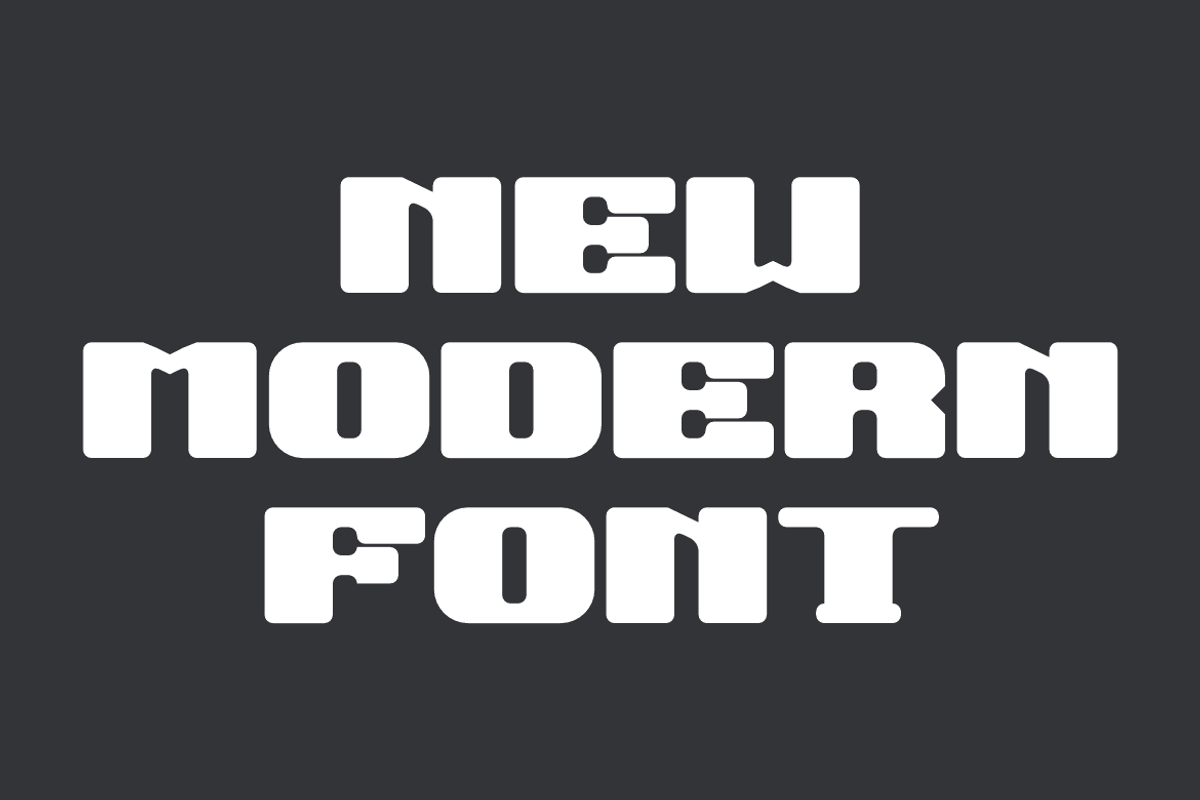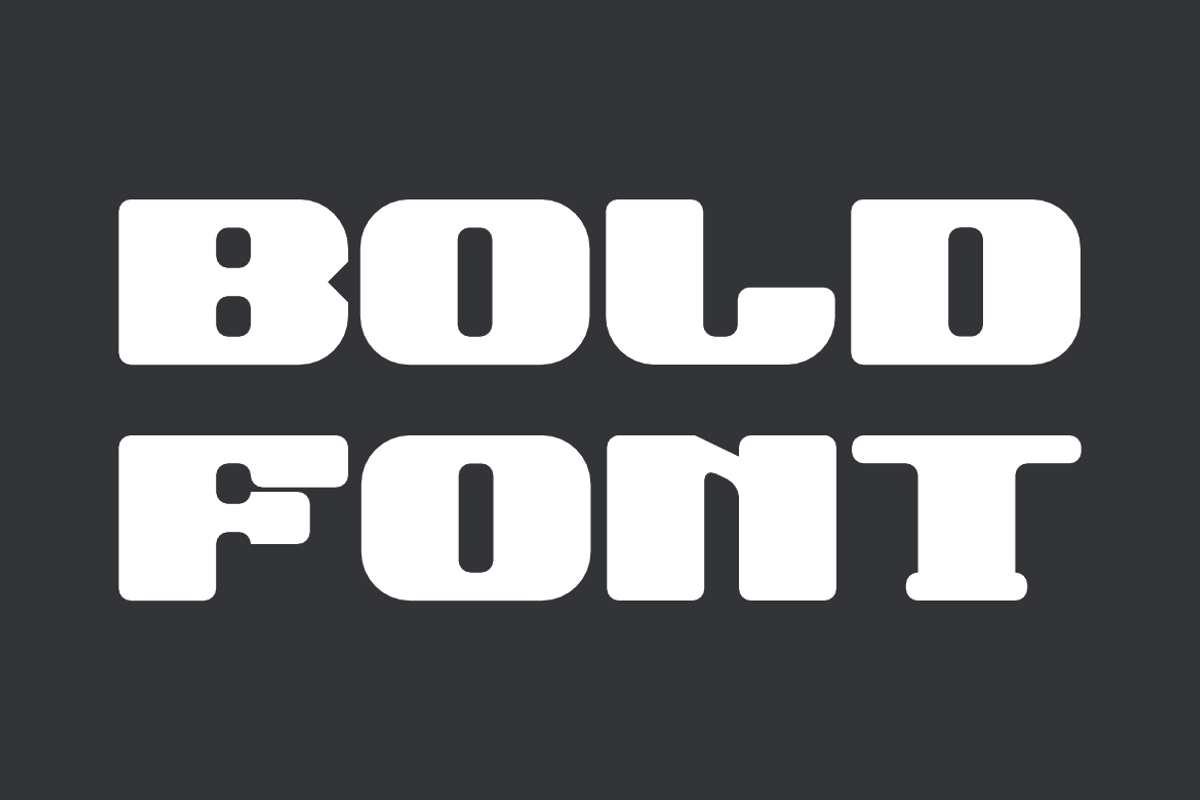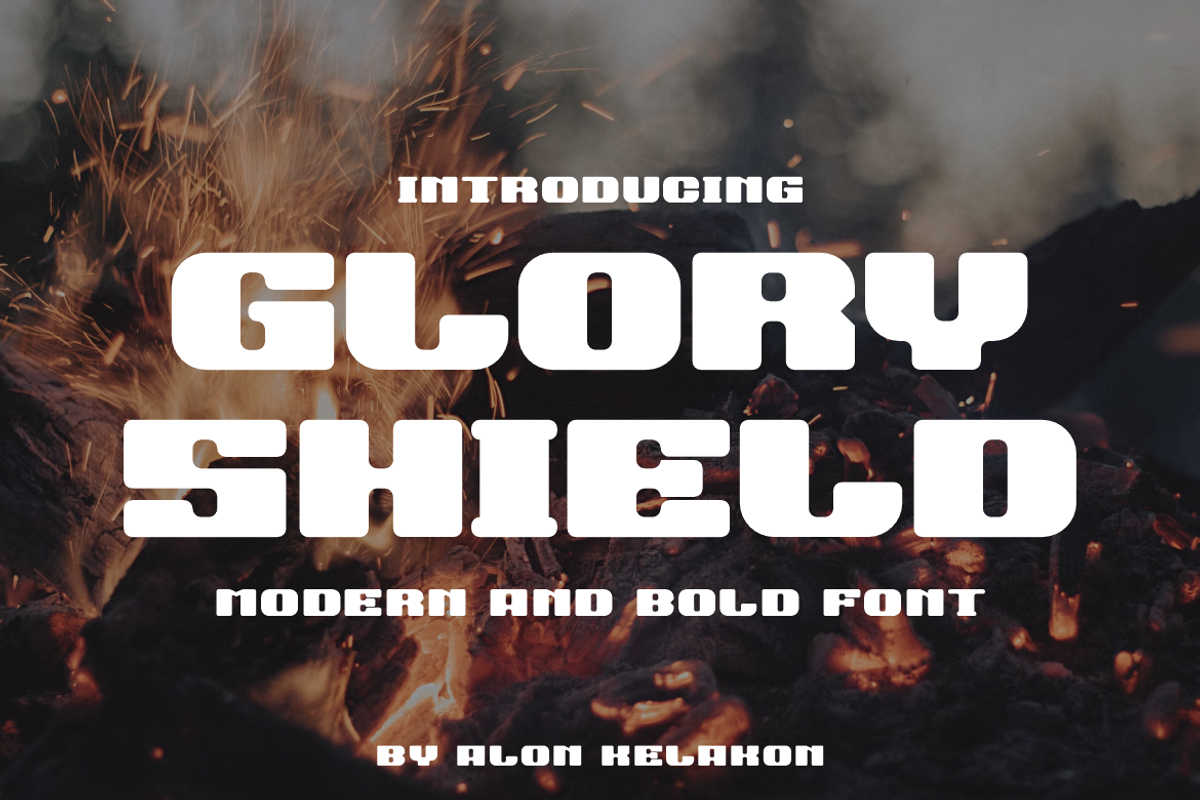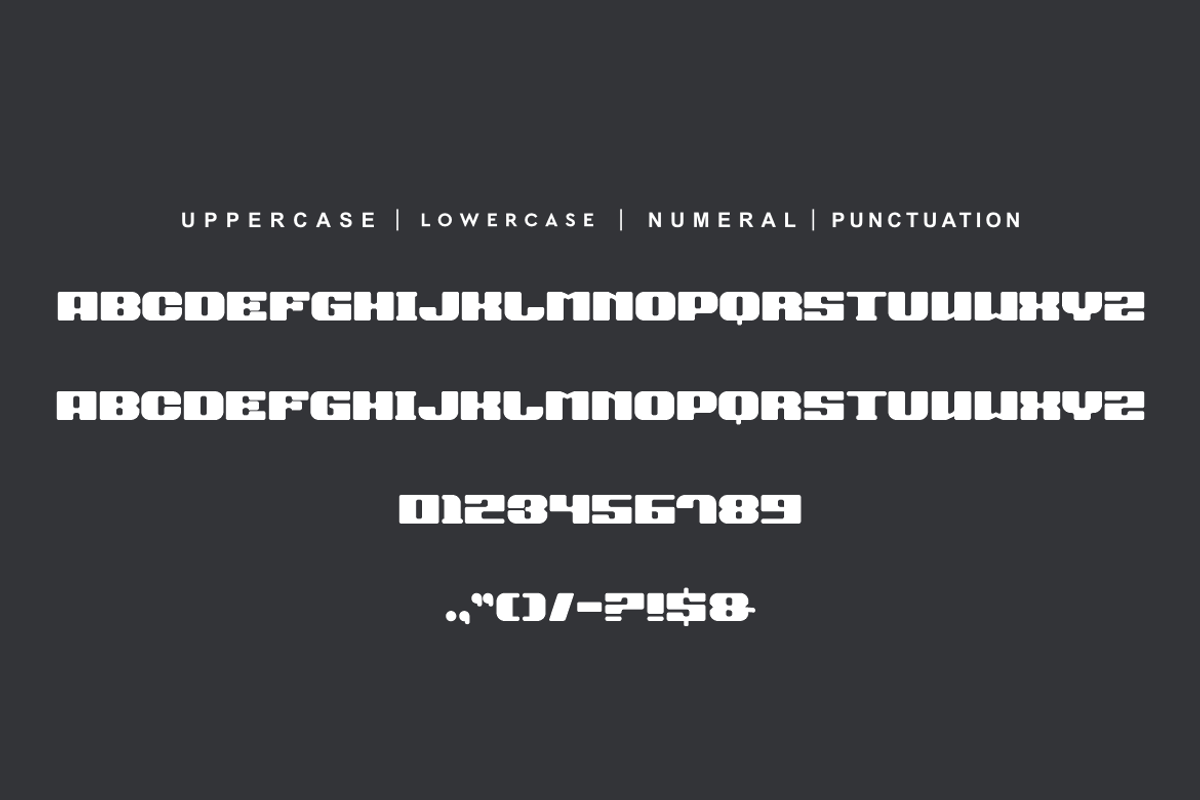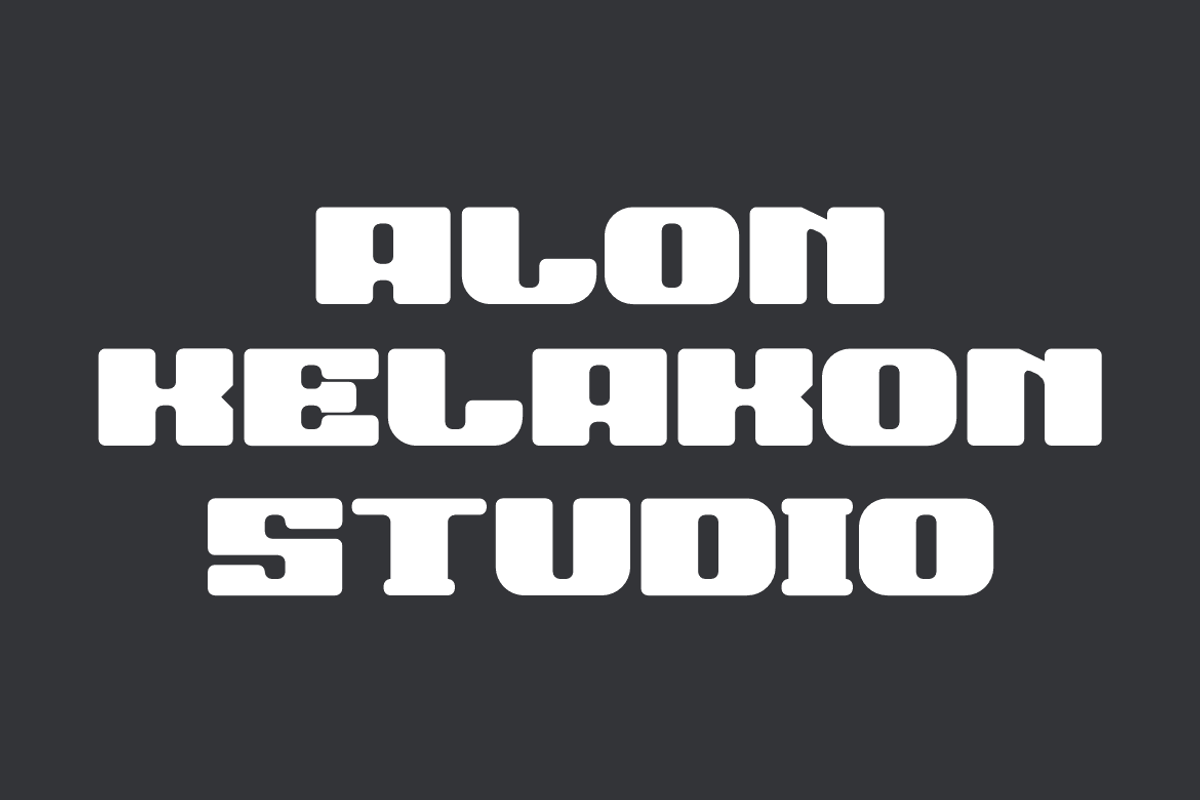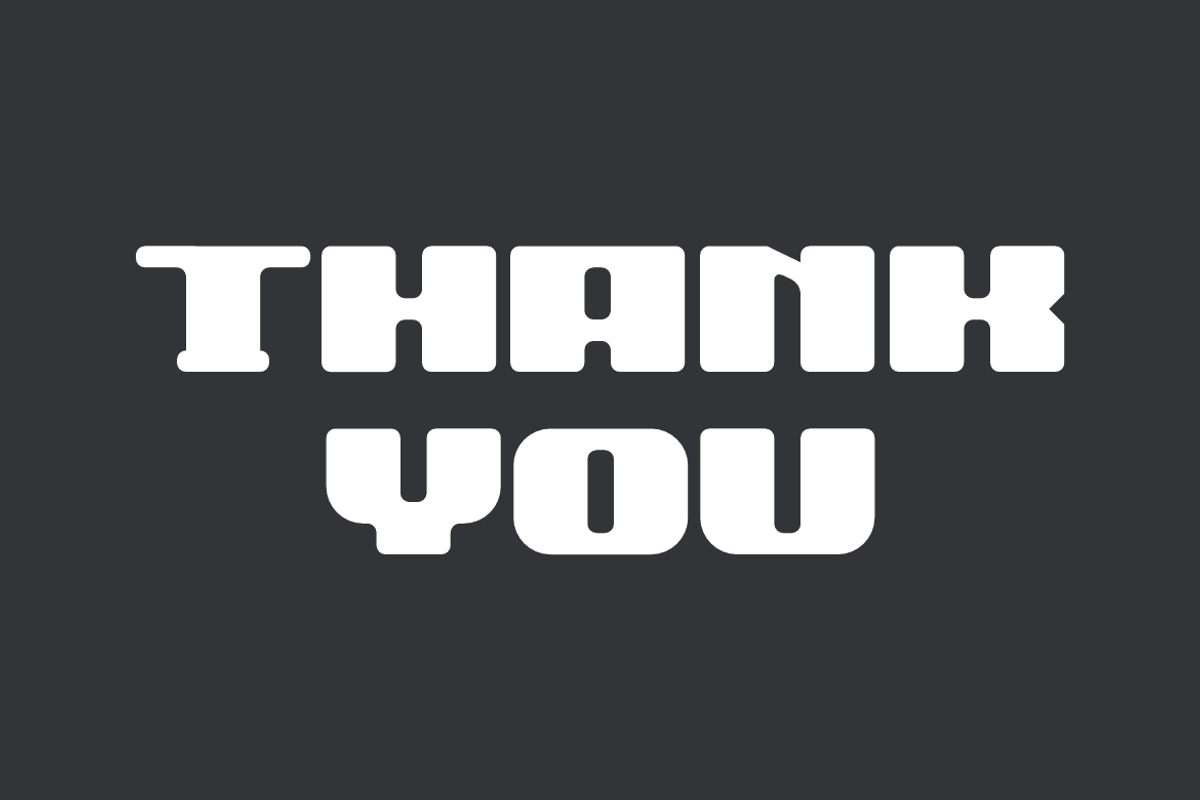
Glory Shield
Glory Shield Font is unique . Ready to use for your design like labeling, movie sceen, poster, movie title, gigs, album covers, logos, and much more.